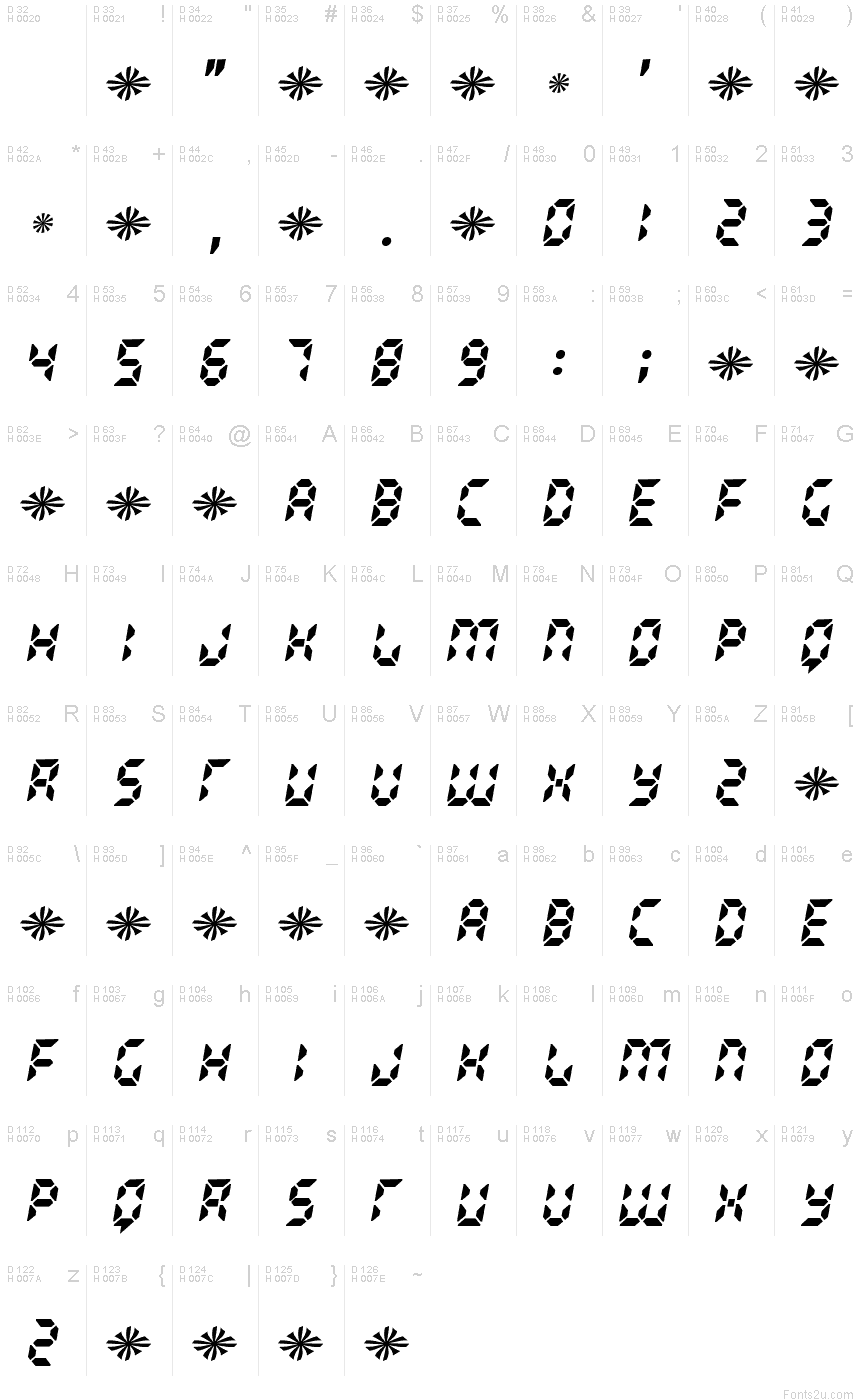
Radioland
Radioland by Jakob Fischer is a free seven-segment digital display font with the blunt, electronic rhythm of old clocks and calculator screens. The letters are built from clipped, angular pieces, so the whole font feels timed, coded, and slightly retro without drifting into novelty.
That makes this free font a natural fit for scoreboard graphics, sci-fi title cards, music flyers, arcade branding, and tech-minded posters where a numeric mood helps carry the concept. It also works well for short headlines and cover lines, because the segmented forms turn even a few letters into a clear visual signal.